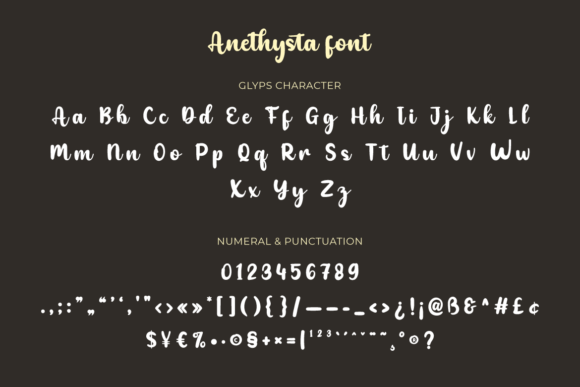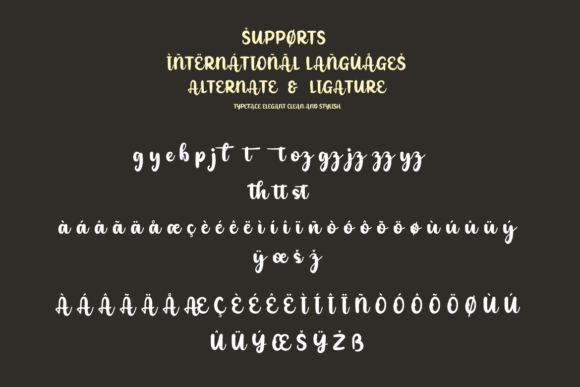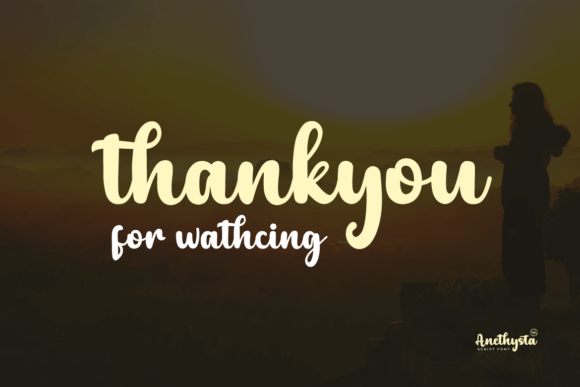
About Anethysta Font
Introducing Anethysta, a gorgeous and bold handwritten font designed to give your headlines and logotype projects a stylish touch. With its strong, confident, and dynamic appearance, Anethysta is the perfect choice to add tons of nostalgic character to your designs.
Anethysta captivates with its bold and expressive letterforms. Each stroke is carefully crafted to create a strong and confident look, while maintaining a sense of authenticity and charm. The result is a font that stands out and leaves a lasting impression.
This font is particularly well-suited for headlines and logotype projects. Its bold and stylish nature instantly draws attention and commands a presence. Whether you’re designing a brand logo, creating eye-catching headlines, or crafting a nostalgic visual identity, Anethysta is sure to make your designs pop.
The nostalgic character of Anethysta adds a touch of retro charm to your compositions. It evokes a sense of vintage authenticity, reminiscent of handcrafted lettering from the past. This makes it an excellent choice for projects that require a dash of nostalgia and personality.
Anethysta is versatile and can be applied to a variety of design contexts. It works well in both digital and print mediums, allowing you to use it for websites, social media graphics, packaging, posters, and more. Its bold and confident style ensures that your message is delivered with impact and style.
Embrace the strong, confident, and dynamic nature of Anethysta and watch as it adds tons of nostalgic character to your designs. Its bold letterforms and stylish appearance make it a font that stands out and leaves a lasting impression. Whether you’re aiming for a vintage-inspired look or simply want to add a touch of boldness to your designs, Anethysta is the perfect choice.
In summary, Anethysta is a gorgeous and bold handwritten font designed to give your headlines and logotype projects a stylish touch. With its strong, confident, and dynamic appearance, Anethysta adds tons of nostalgic character to your designs. Embrace its boldness and charm, and let it make a lasting impression in your creative endeavors.